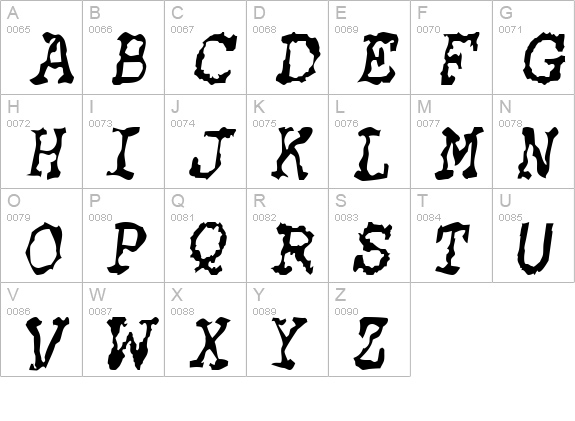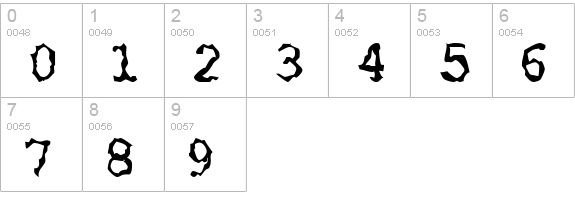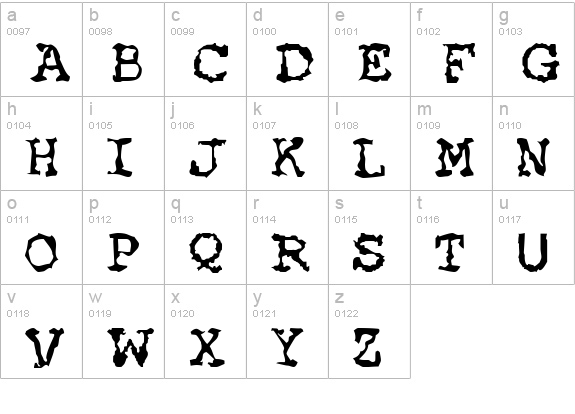
HEATWAVE Font Details
Introducing HEATWAVE, a stunningly bold and vibrant font that is sure to set your designs on fire! This incredible typeface exudes an intense energy that is perfect for adding a touch of heat and passion to your projects. With its captivating curves and fiery letterforms, HEATWAVE commands attention and ignites a sense of excitement in every word. Whether you're designing a sizzling poster, a scorching logo, or a blazing headline, this font will effortlessly make a powerful statement. But that's not all – the best part about HEATWAVE is that it's completely free! Yes, you heard that right. Now you can unleash the scorching heat of this font without any cost. Thanks to FontsMarket.com, HEATWAVE is freely available to download, allowing you to bring a blazing edge to your designs without breaking the bank. HEATWAVE's versatility knows no bounds. Its bold and impactful presence can be easily adapted to a wide range of projects, from eye-catching advertisements to striking social media graphics. The possibilities are endless, and with HEATWAVE, you have the freedom to explore and experiment with the intensity of fiery typography. This font's attention to detail is truly remarkable. Each character is meticulously crafted, ensuring a seamless flow and harmonious composition. The sharp edges and distinct strokes of HEATWAVE give it an edgy and modern feel, making it the perfect choice for contemporary design projects. So, what are you waiting for? Set your creativity ablaze with HEATWAVE and watch as your designs catch fire. Download this captivating font for free at FontsMarket.com and let the heatwave begin!